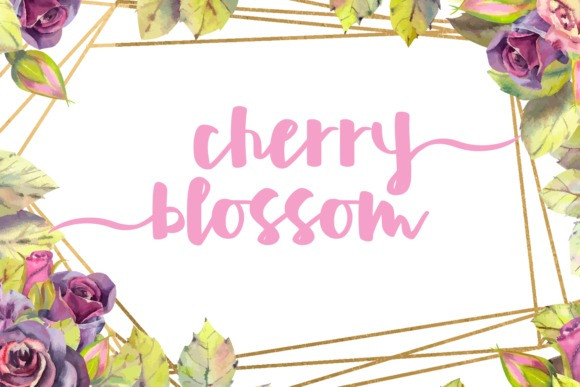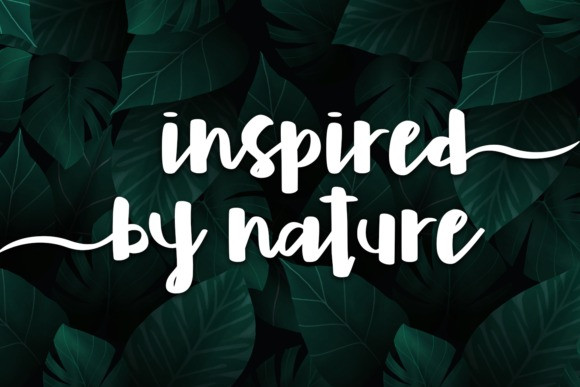
Villaga Handwritten Font
Villaga Stylish Signature Font, Offers you new experience of handwritten letter, suitable for your wedding invitation, brochure, logo, business card and for your other business need.